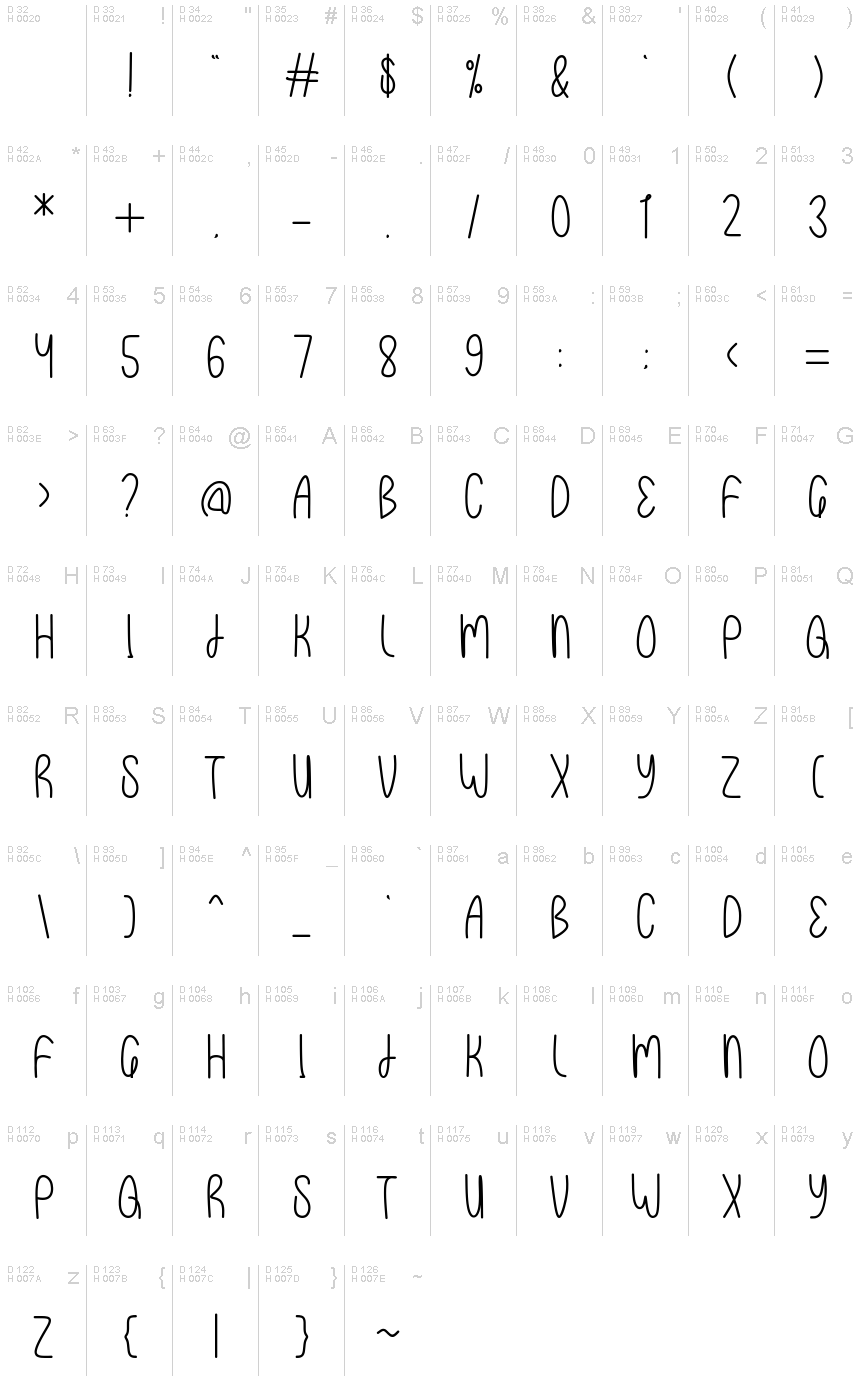
Rudolph
Rudolph, a creation of Alpaprana Studio, stands out with its handwritten charm and light-weighted grace. This condensed font offers an aesthetic that is at once personal and inviting, capturing the essence of quick, fluid strokes penned by a skilled artist. The subtle variations in line thickness evoke a sense of authenticity and warmth that can add character to various creative endeavors.
Perfect for projects seeking a touch of intimacy without sacrificing elegance, Rudolph's style lends itself beautifully to personalized stationery, unique branding, or any design that benefits from a handcrafted feel. Its condensed form allows for impactful use in tighter spaces without losing legibility—an essential quality for sophisticated layouts where space is at a premium.